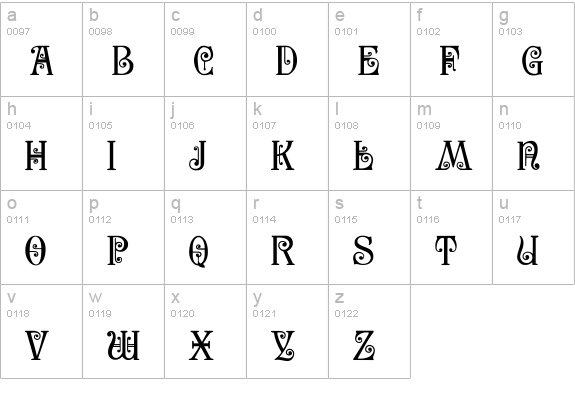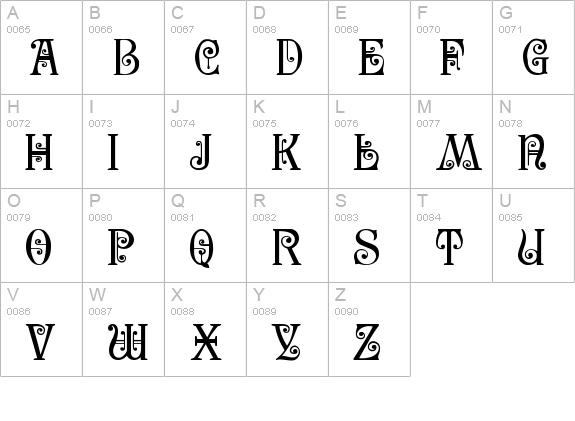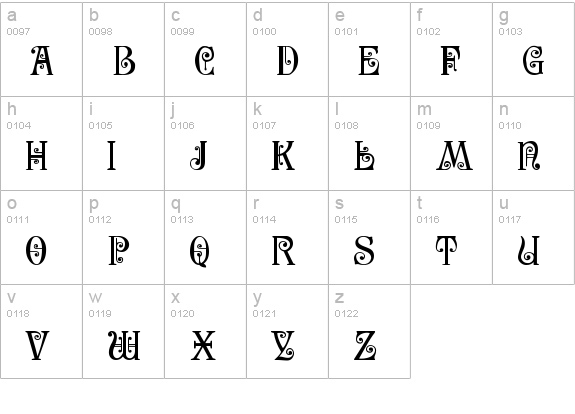
SecesjaPL Font Details
SecesjaPL is a breathtaking font that embodies the essence of Art Nouveau with its elegant curves and intricate details. This unique typeface captures the beauty and grace of the Secesja movement, making it perfect for adding a touch of sophistication to any design project. With its ornate letterforms, SecesjaPL brings a sense of nostalgia and romanticism to your typography. Each character is meticulously crafted, showcasing the intricate craftsmanship that was characteristic of the Art Nouveau era. From the flowing lines to the delicate flourishes, this font exudes a timeless elegance that is sure to captivate and inspire. What makes SecesjaPL even more impressive is that it is available for free. That's right, this stunning font can be freely downloaded at FontsMarket.com. Whether you're a professional designer or simply a typography enthusiast, having access to such a beautiful and high-quality font without any cost is a true gift. From branding and packaging to invitations and posters, SecesjaPL is versatile and can be used in a wide range of design projects. Its distinctive style will make your creations stand out and leave a lasting impression. Whether you're aiming for a vintage-inspired look or a contemporary twist on classic design, this font has the flexibility to adapt to your vision. So why wait? Download SecesjaPL today and let its enchanting beauty transform your designs. With its seamless blend of elegance and nostalgia, this font is a must-have for any designer looking to add a touch of sophistication to their work. And with its availability for free at FontsMarket.com, there's no reason not to explore the world of SecesjaPL and embrace its timeless charm.